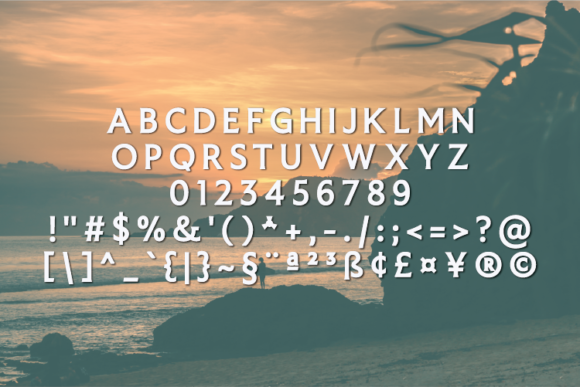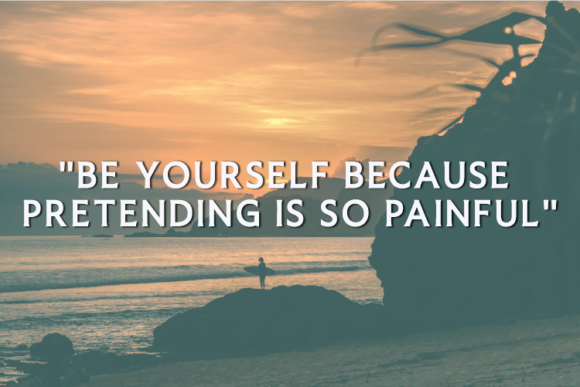
Bullvero Font: The Ultimate Minimal Sans Serif for Your Designs
In the world of typography, a good font can make all the difference in the success of a design project. Whether you’re a seasoned designer or a crafty DIY enthusiast, finding the right font can be a daunting task. That’s where Bullvero comes in – a minimal and genuine sans serif font that’s perfect for a wide range of designs. In this article, we’ll dive into the features and benefits of Bullvero, and explore why it’s poised to become your new go-to font.
The Beauty of Minimalism
Bullvero’s minimalist design is its standout feature. With clean lines, simple shapes, and a lack of embellishments, this font exudes a sense of elegance and sophistication. Its neat and straightforward style makes it incredibly versatile, allowing it to seamlessly integrate into various design contexts. Whether you’re working on a logo, a brochure, or a website, Bullvero’s understated charm will help your message shine through.
Key Features of Bullvero
- Minimalist design: Bullvero’s simple and uncluttered design makes it perfect for designs that require a clean and modern aesthetic.
- Sans serif: The font’s sans serif style gives it a contemporary and approachable feel, making it ideal for digital and print applications.
- High legibility: Bullvero’s clear and concise letterforms ensure that your text is easy to read, even at small sizes.
- Versatile: This font can be used for a wide range of designs, from logos and branding to headings and body text.
Why Bullvero Should Be Your Go-To Font
So, what makes Bullvero an attractive choice for designers and crafters? Here are just a few reasons why this font is poised to become your new favorite:
- Easy to pair: Bullvero’s neutral design makes it easy to pair with other fonts, allowing you to create harmonious and visually appealing combinations.
- Scalable: This font performs beautifully at various sizes, from large headings to small body text.
- Legible: Bullvero’s clear letterforms ensure that your text is easy to read, even for users with visual impairments.
- Unique: While Bullvero’s minimalist design may seem simple, it has a distinct character that sets it apart from more generic sans serif fonts.
Design Applications for Bullvero
Bullvero’s versatility makes it suitable for a wide range of design applications, including:
- Branding and logos: Bullvero’s clean design makes it perfect for creating simple, yet effective logos and brand identities.
- Print materials: This font is well-suited for brochures, flyers, posters, and other print materials where a clean and modern aesthetic is desired.
- Digital interfaces: Bullvero’s legibility and simplicity make it an excellent choice for digital interfaces, such as websites, apps, and mobile devices.
- Crafting and DIY projects: Whether you’re creating handmade cards, scrapbooking, or working on other DIY projects, Bullvero’s charming design is sure to add a touch of elegance.
In conclusion, Bullvero is a minimal and genuine sans serif font that’s perfect for designers and crafters looking for a versatile and elegant typography solution. Its clean design, high legibility, and scalability make it an excellent choice for a wide range of design applications. Whether you’re working on a professional project or a personal DIY endeavor, Bullvero is sure to become your new go-to font. So why not give it a try and experience the beauty of minimalism in your designs?